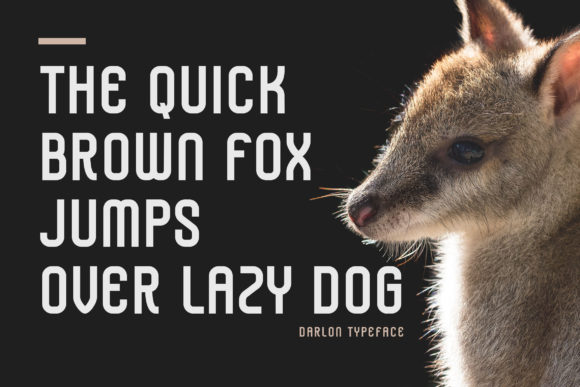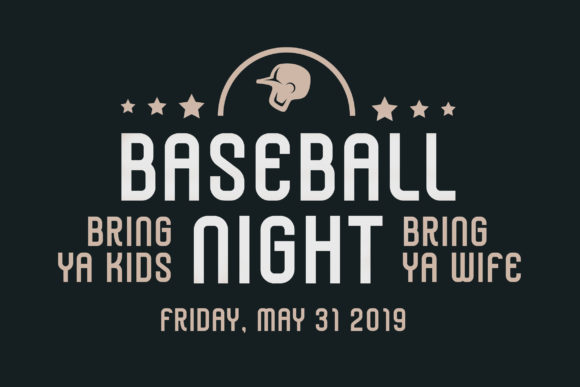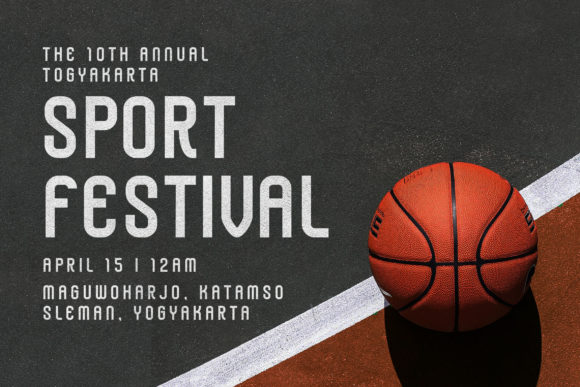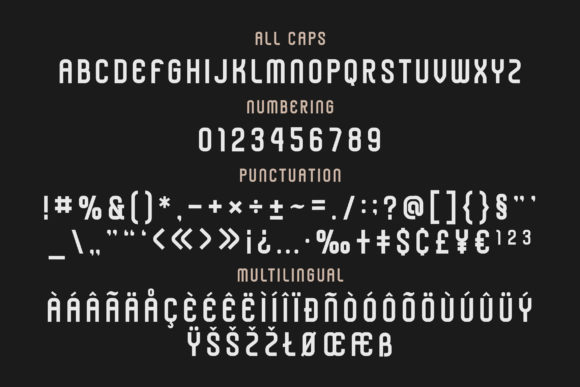
Introducing Darlon Font: Elevate Your Designs with a Modern Twist
Are you tired of using the same old fonts in your designs? Look no further than Darlon Font, an incredibly charming and modernistic sans serif font that’s sure to give your work a cool and fresh feel. With its sleek lines and contemporary style, Darlon is the perfect choice for designers and crafters looking to turn any design idea into a true standout.
The Characteristics of Darlon Font
Darlon Font is a sans serif font, which means it doesn’t have the small lines or flourishes that are commonly found at the ends of letters in serif fonts. This gives Darlon a clean and minimalist look that’s perfect for designs that need to be modern and sophisticated. The font has a number of distinctive characteristics that set it apart from other sans serif fonts, including:
- Clean lines: Darlon’s lines are smooth and uncomplicated, giving the font a sleek and streamlined look.
- Geometric shapes: The font is based on geometric shapes, which gives it a modern and futuristic feel.
- Even spacing: The letters in Darlon are evenly spaced, which makes it easy to read and use in a variety of design applications.
Why Choose Darlon Font?
So why should you choose Darlon Font for your next design project? Here are just a few reasons:
- Versatility: Darlon is a versatile font that can be used in a wide range of design applications, from posters and flyers to websites and social media graphics.
- Readability: The font is highly readable, even at small sizes, which makes it perfect for designs that need to communicate information clearly and effectively.
- Uniqueness: Darlon has a unique and distinctive look that will help your designs stand out from the crowd.
How to Use Darlon Font in Your Designs
Darlon Font is easy to use in a variety of design applications. Here are a few tips for getting the most out of this amazing font:
- Pair it with other fonts: Darlon pairs well with a variety of other fonts, including serif fonts and script fonts. Experiment with different combinations to find the one that works best for your design.
- Use it for headlines: Darlon is perfect for headlines and titles, where its bold and modern style can really make an impact.
- Experiment with colors: Darlon looks great in a variety of colors, from bold and bright to subtle and muted. Experiment with different colors to find the one that works best for your design.
Design Ideas to Get You Started
Need some inspiration for your next design project? Here are a few ideas to get you started:
- Posters and flyers: Use Darlon to create eye-catching posters and flyers that will grab attention and communicate your message clearly.
- Websites and blogs: Darlon is a great choice for websites and blogs, where its clean and modern style can help to create a professional and sophisticated look.
- Social media graphics: Use Darlon to create social media graphics that will stand out from the crowd and help you to connect with your audience.
Darlon Font is an incredibly charming and modernistic sans serif font that’s perfect for designers and crafters looking to add a cool and fresh feel to their work. With its clean lines, geometric shapes, and even spacing, Darlon is a versatile font that can be used in a wide range of design applications. Whether you’re creating posters and flyers, websites and blogs, or social media graphics, Darlon is the perfect choice for anyone looking to turn their design ideas into true standouts.